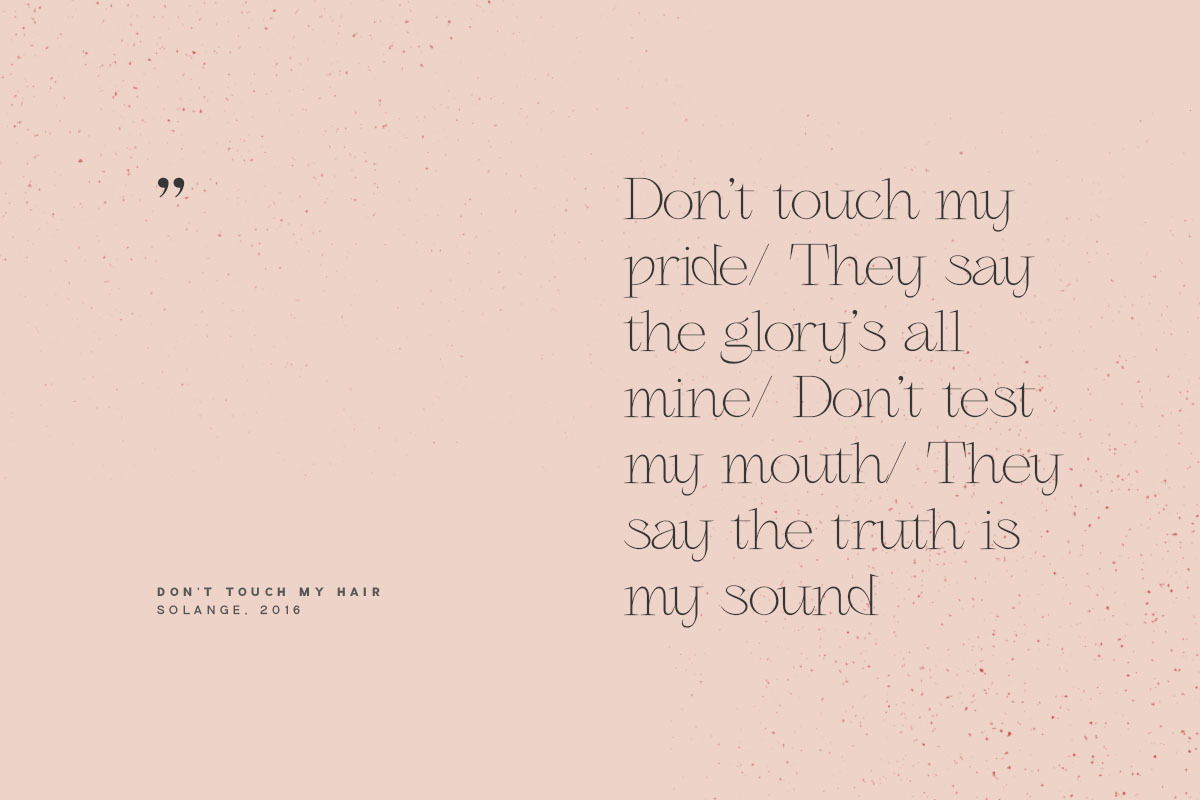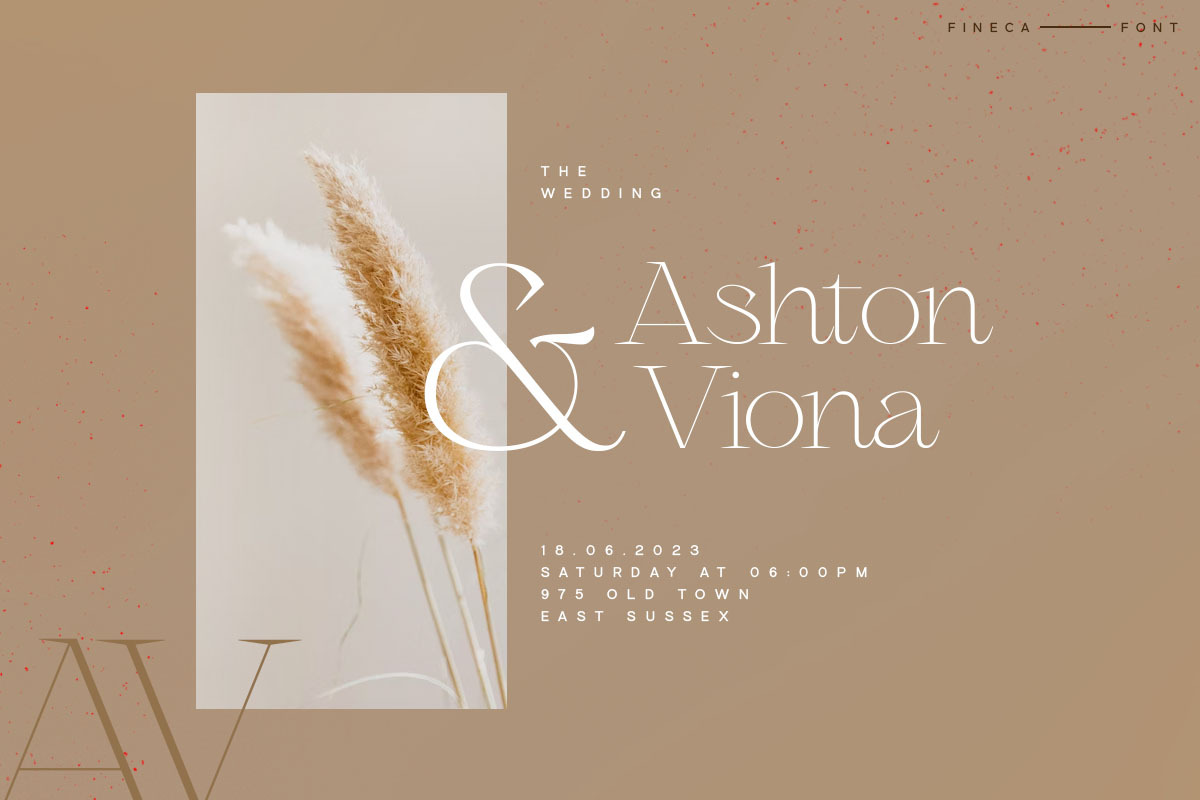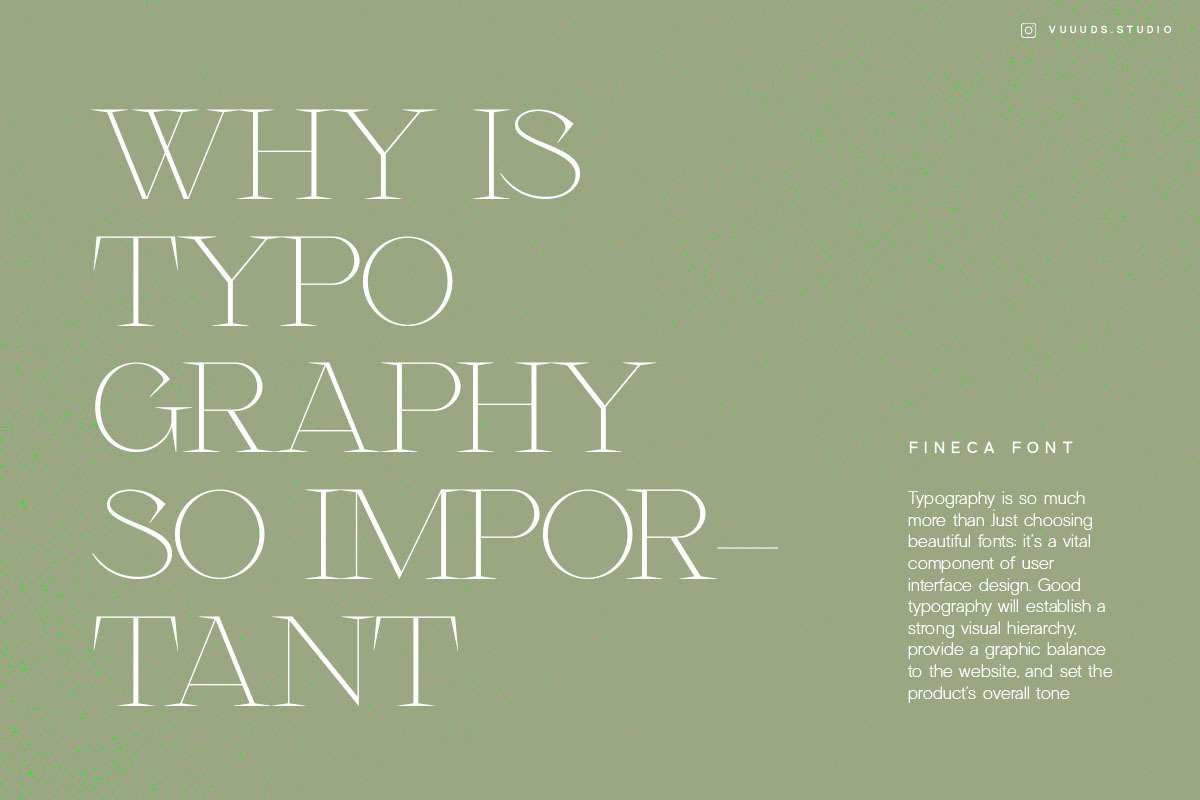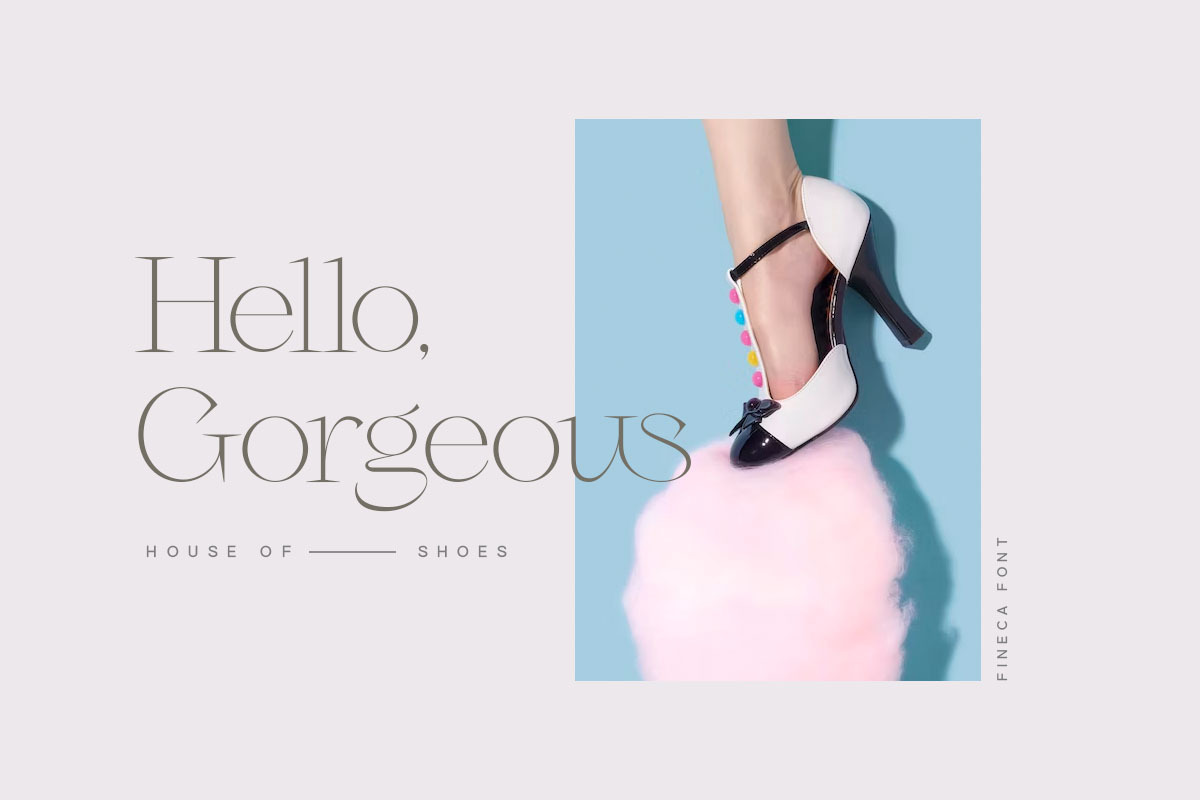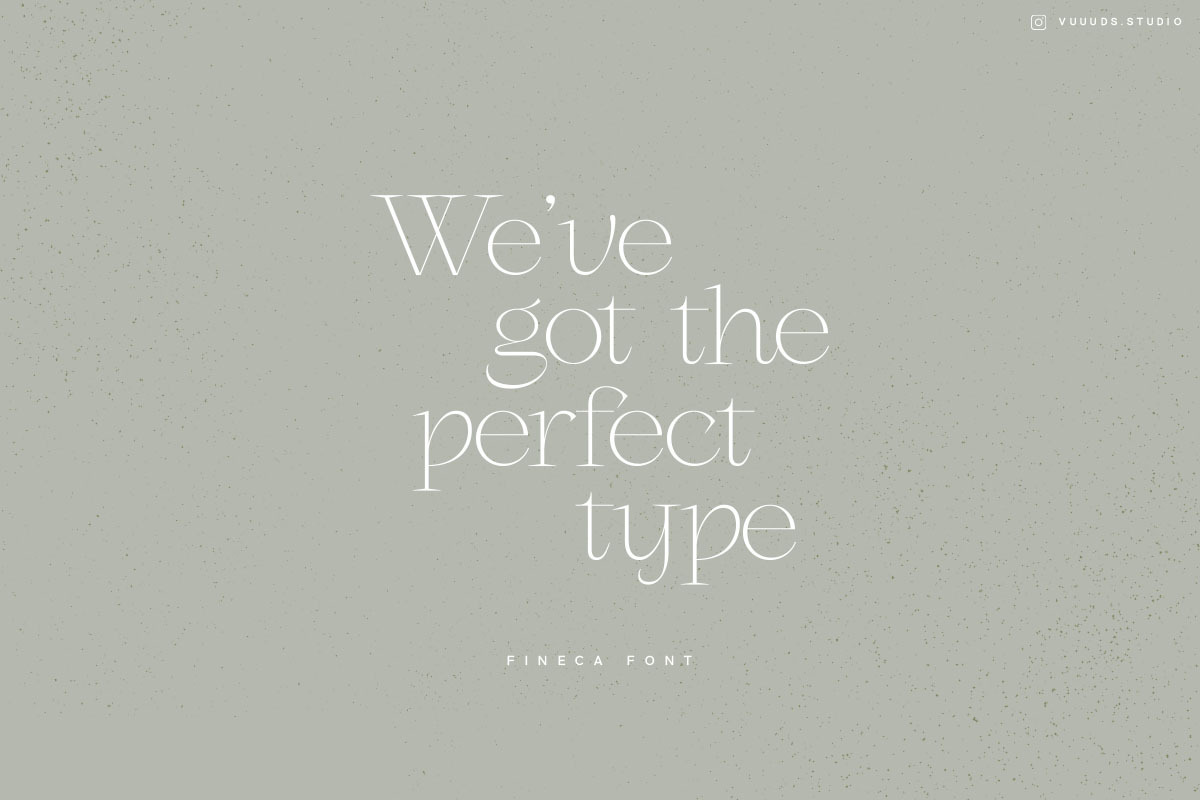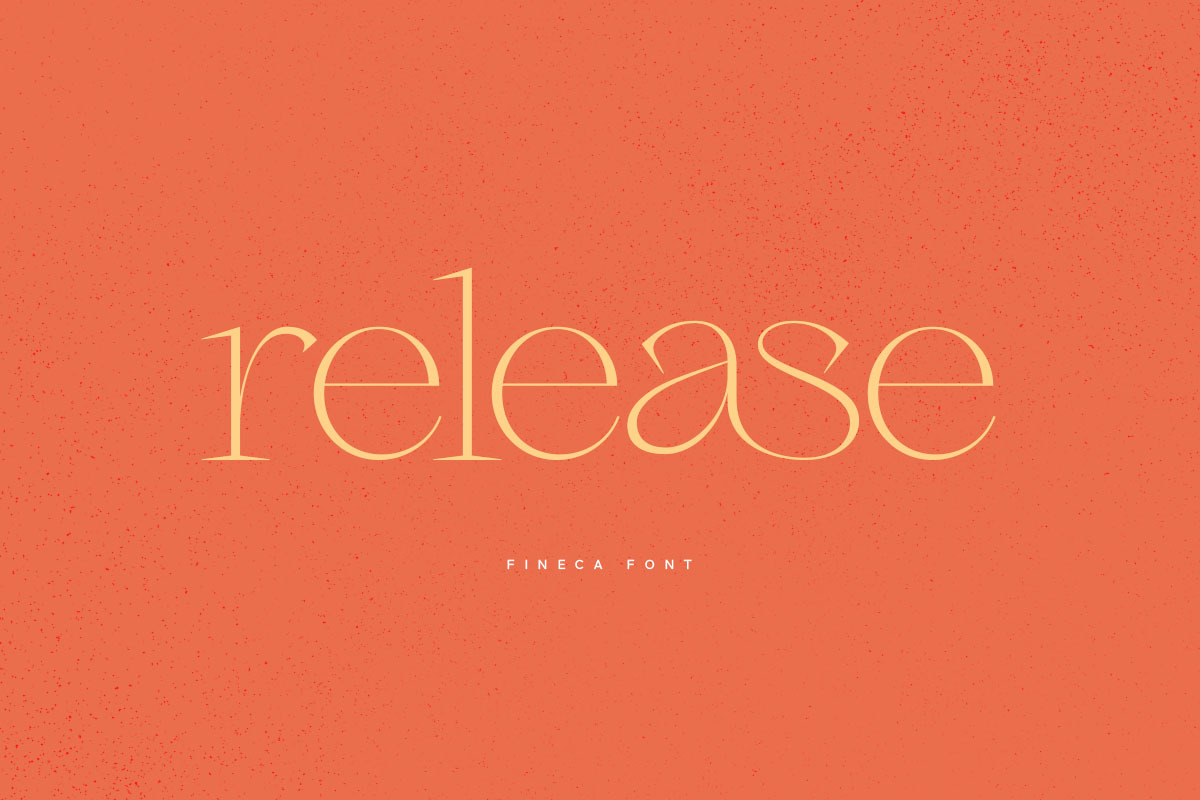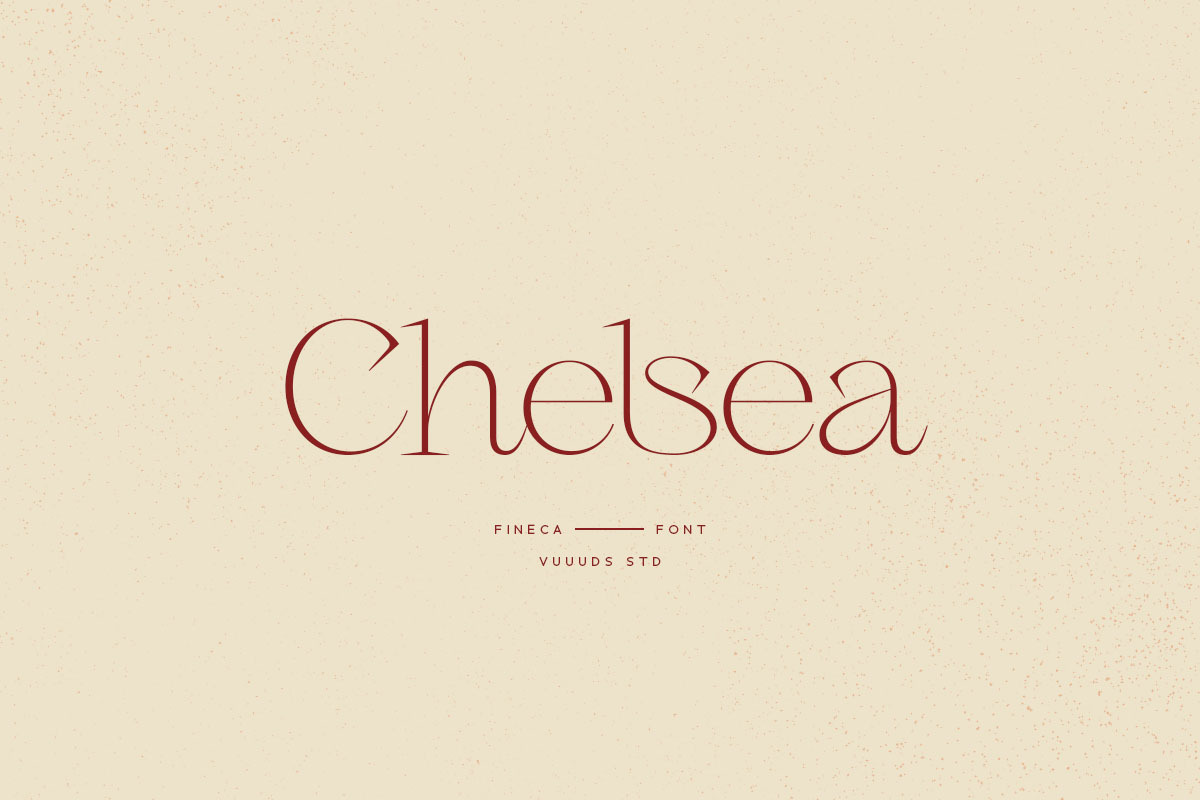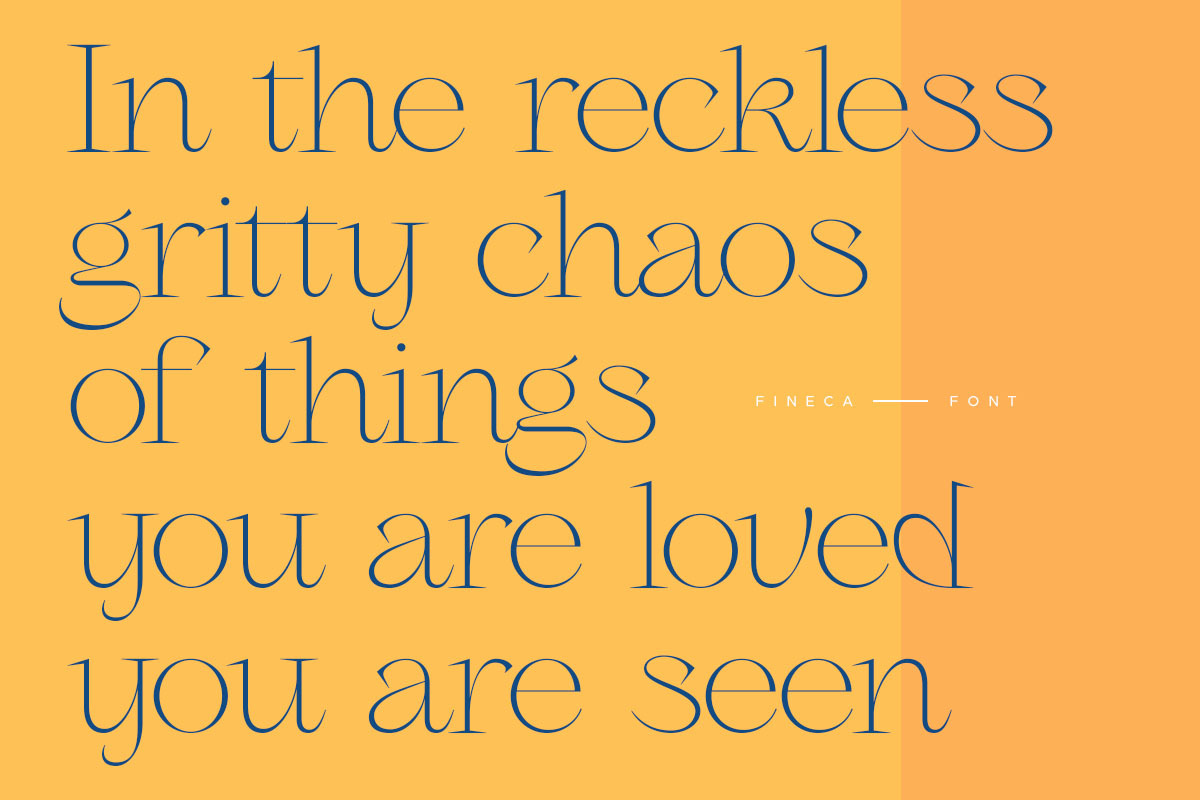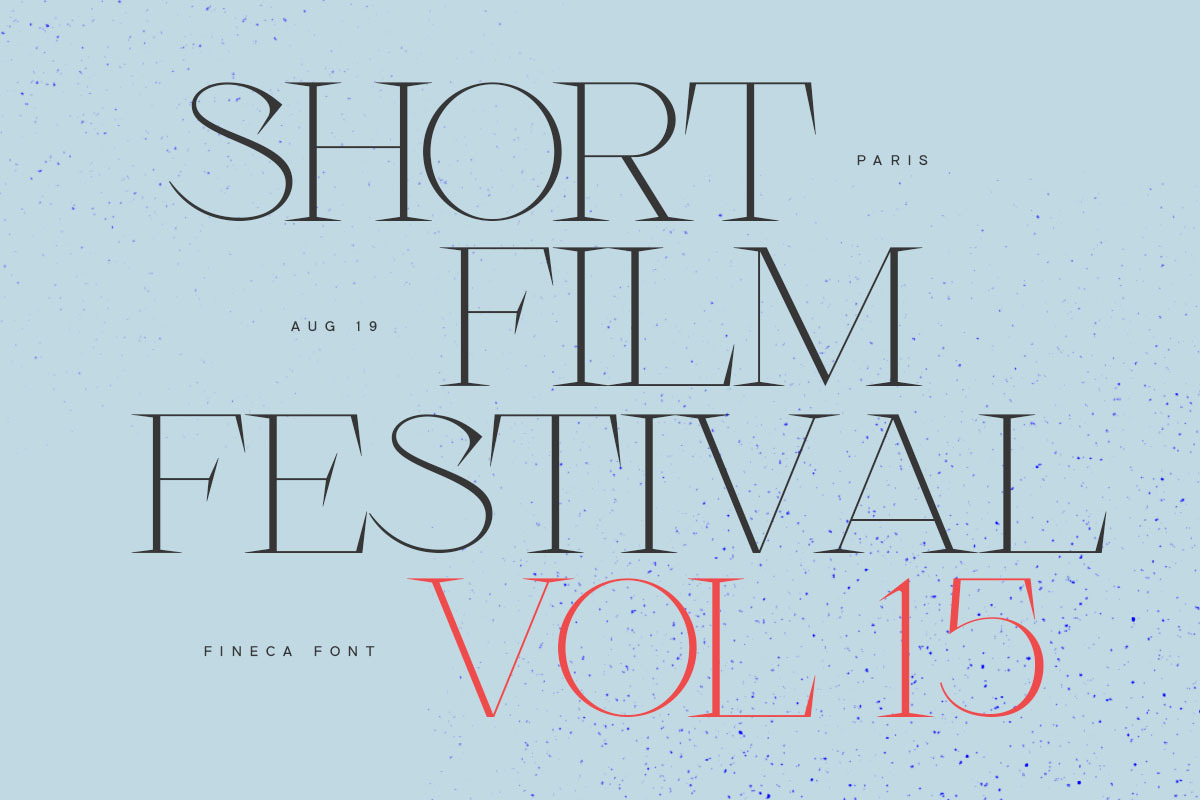
Fineca
Introducing Fenica Font!
Fenica is modern serif font, every single letters have been uniquely crafted.
Multi languages support: ÀÁÂÃÄÅÆÇÈÉÊËÌÍÎÏÐÑÒÓÔÕÖØÙÚÛÜÝàáâãäåæçèéêëìíîïðñòóôõöøùúûüýÿ